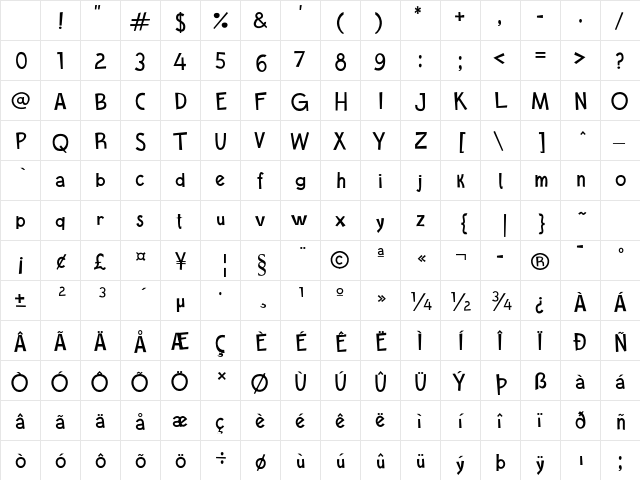
Complete Cartoon Toy Turbo Regular glyph index. Displaying only characters natively supported by Cartoon Toy Turbo Regular font.
Cartoon Toy Turbo has an approachable, lighthearted character - its loose, expressive forms are well-suited to children's content, casual branding, and fun-first design.
Font Pairing: Pairs well with a rounded or humanist sans for body copy, maintaining the friendly tone without relying on Cartoon Toy Turbo to carry extended reading.
Pro Tip: Use Cartoon Toy Turbo at larger display sizes where its expressive character can land. Pair with a clean, simple sans for body copy to maintain readability.
Who designed the Cartoon Toy Turbo Regular font?